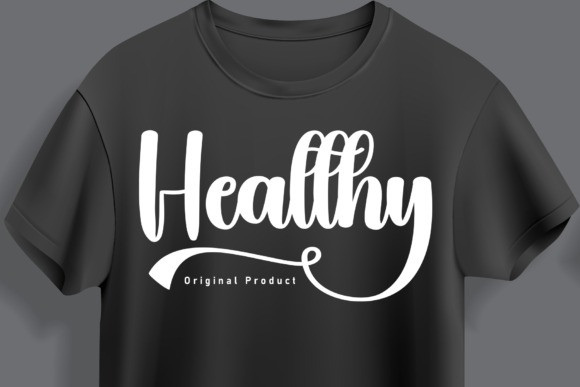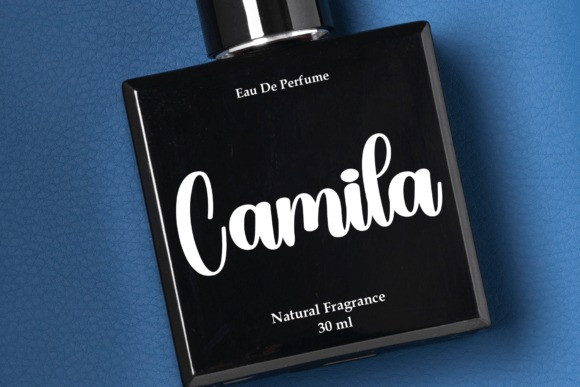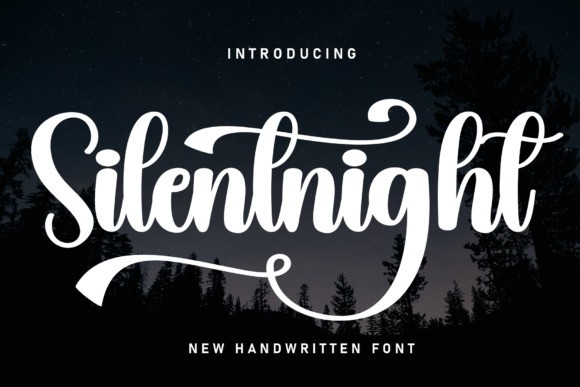
Silentnight Script Font
Silentnight Script Font is a sweet and friendly handwritten font. Its natural and unique style makes it incredibly fitting to a large pool of designs. The only limit is your imagination!